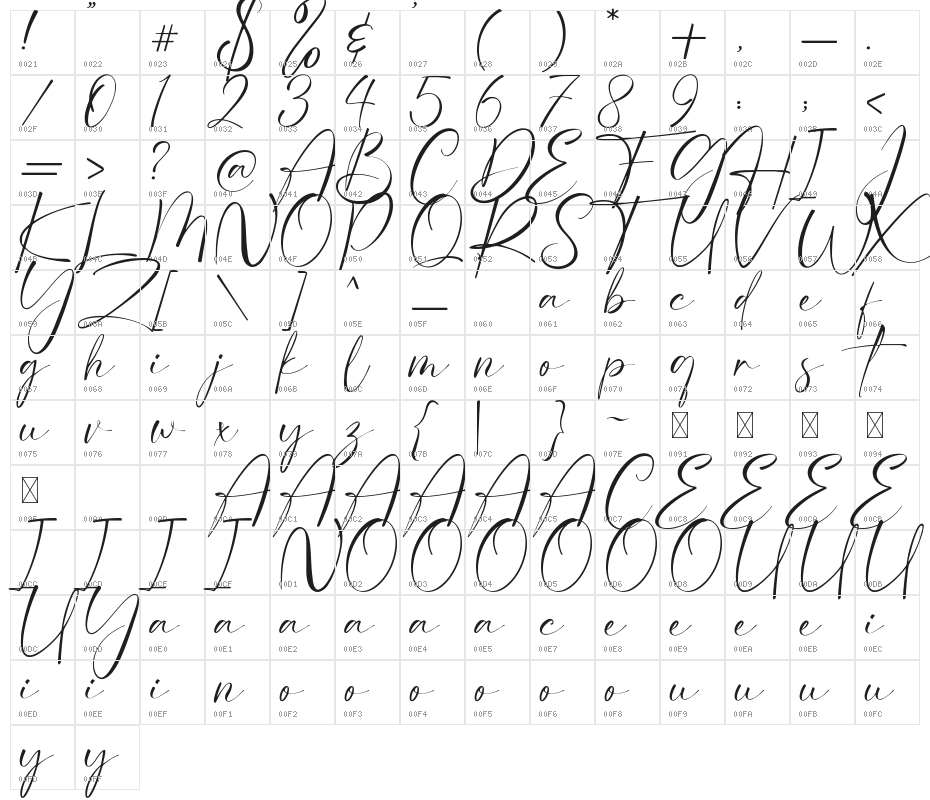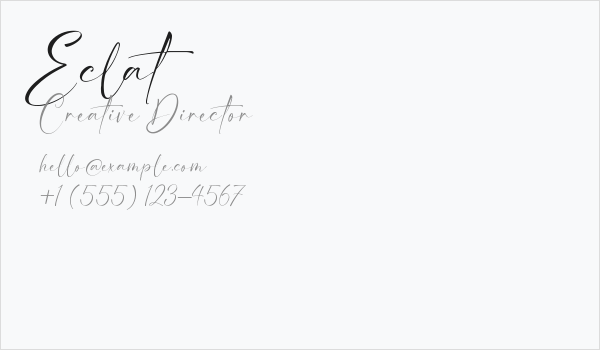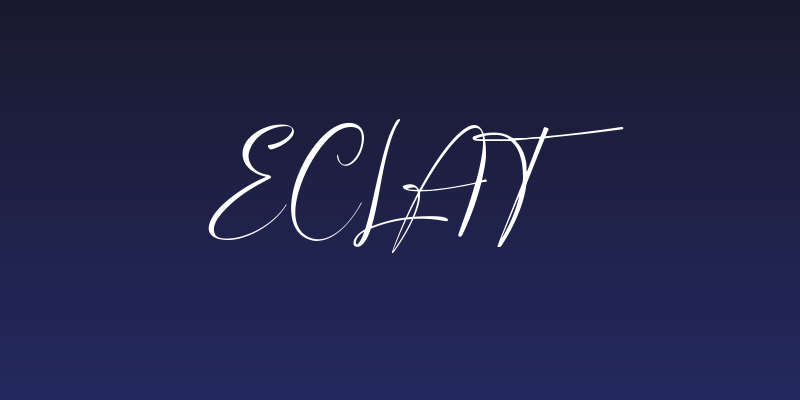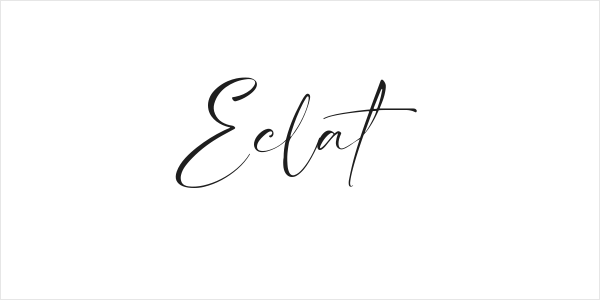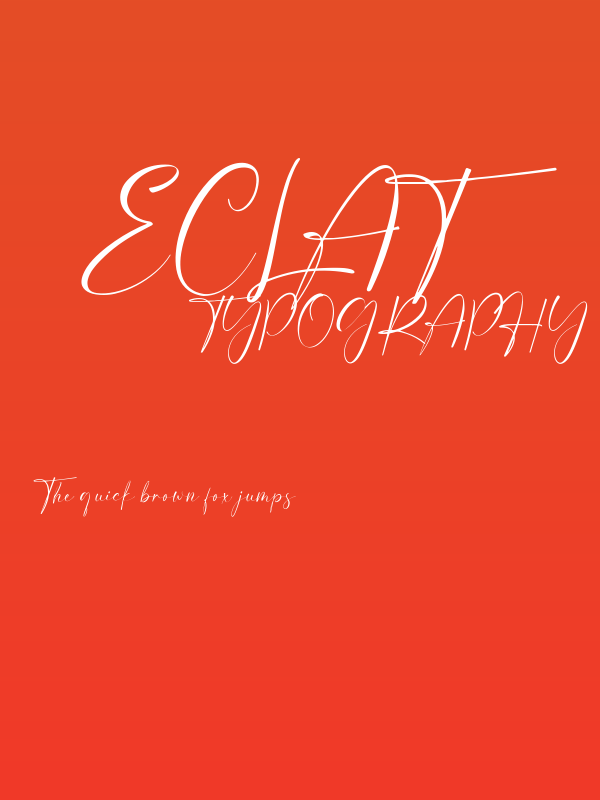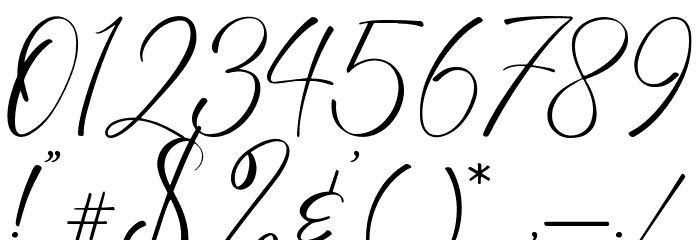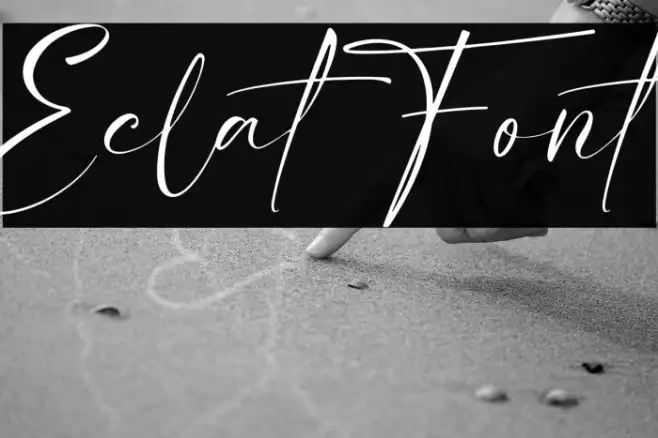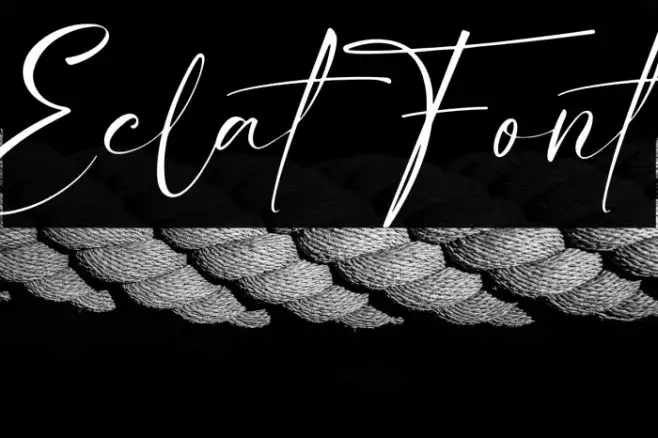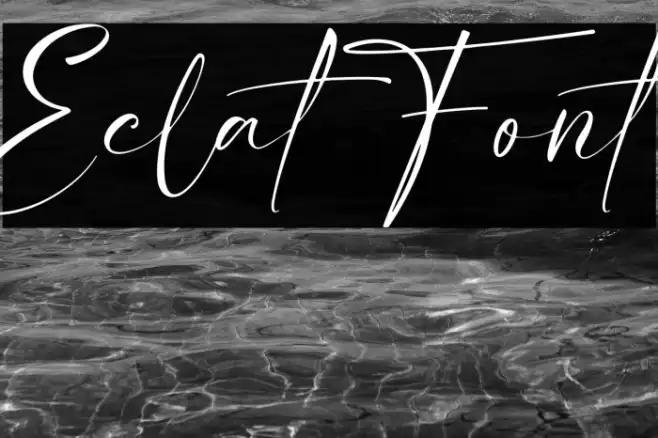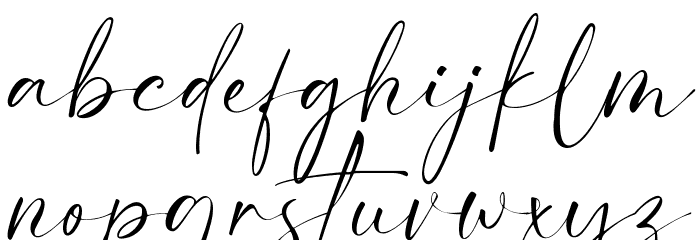
Eclat Font
Eclat Description
This font exudes elegance and sophistication with its fluid, cursive style. The letters are crafted with a graceful, flowing script that mimics the natural movement of handwriting. Each character is distinct, yet they all harmonize beautifully, creating a seamless and artistic appearance. The uppercase letters are slightly more elaborate, with sweeping lines and gentle curves, while the lowercase letters maintain a consistent and smooth flow. The numerals are equally stylish, maintaining the font's overall aesthetic. Special characters are thoughtfully designed, adding to the font's versatility. This font is perfect for projects that require a touch of elegance and personal flair.
| Proposed Projects | Ideal for wedding invitations, greeting cards, branding, and elegant logos. |